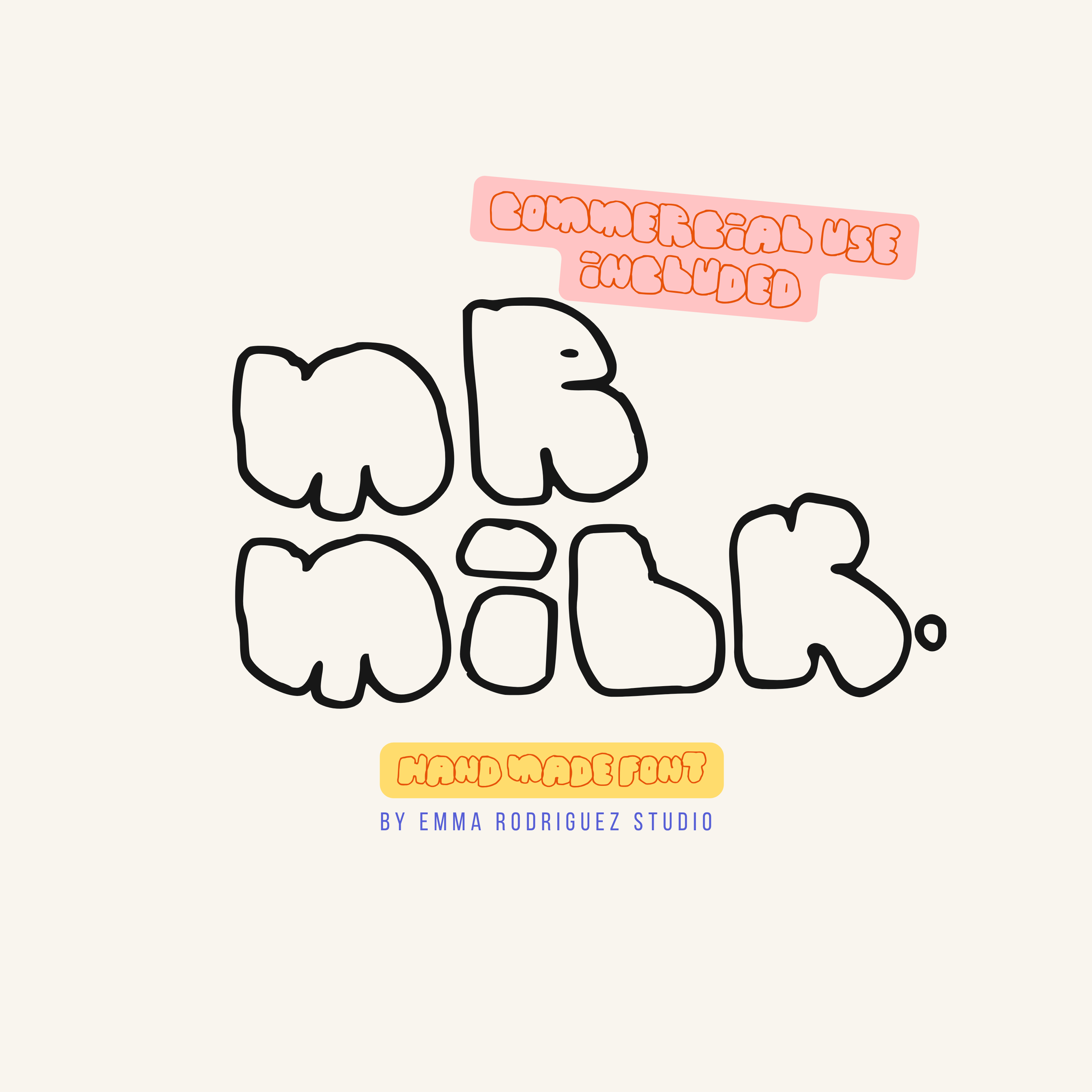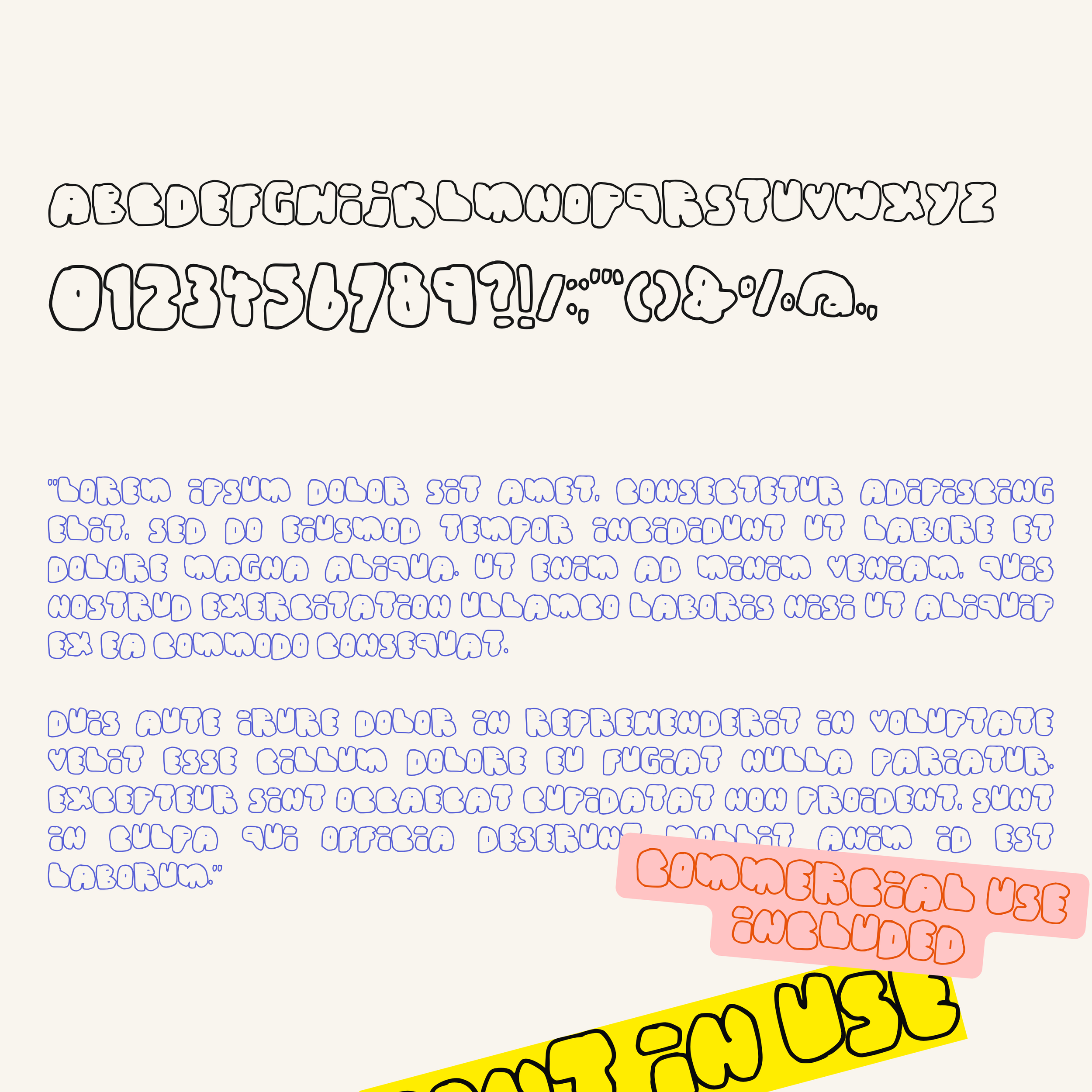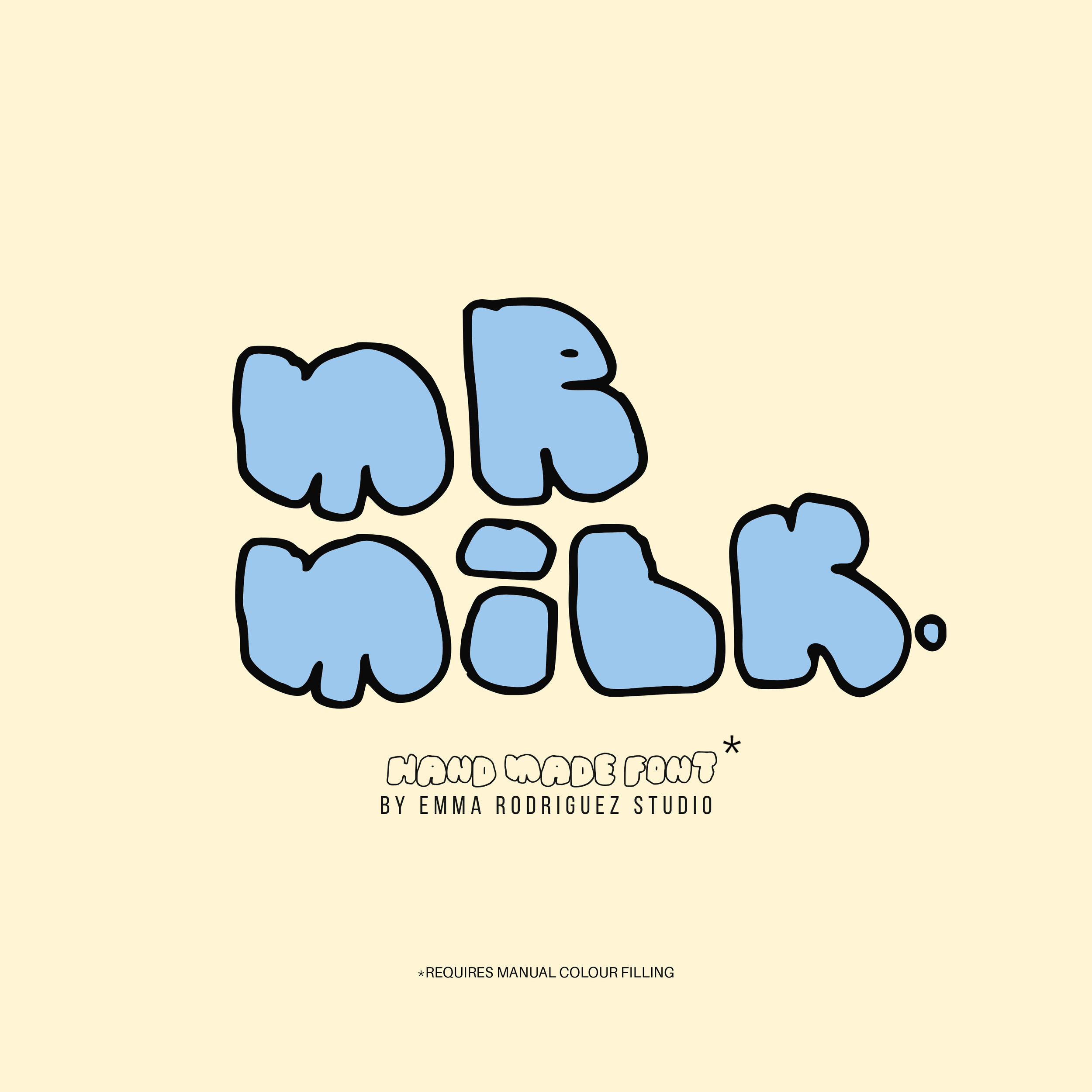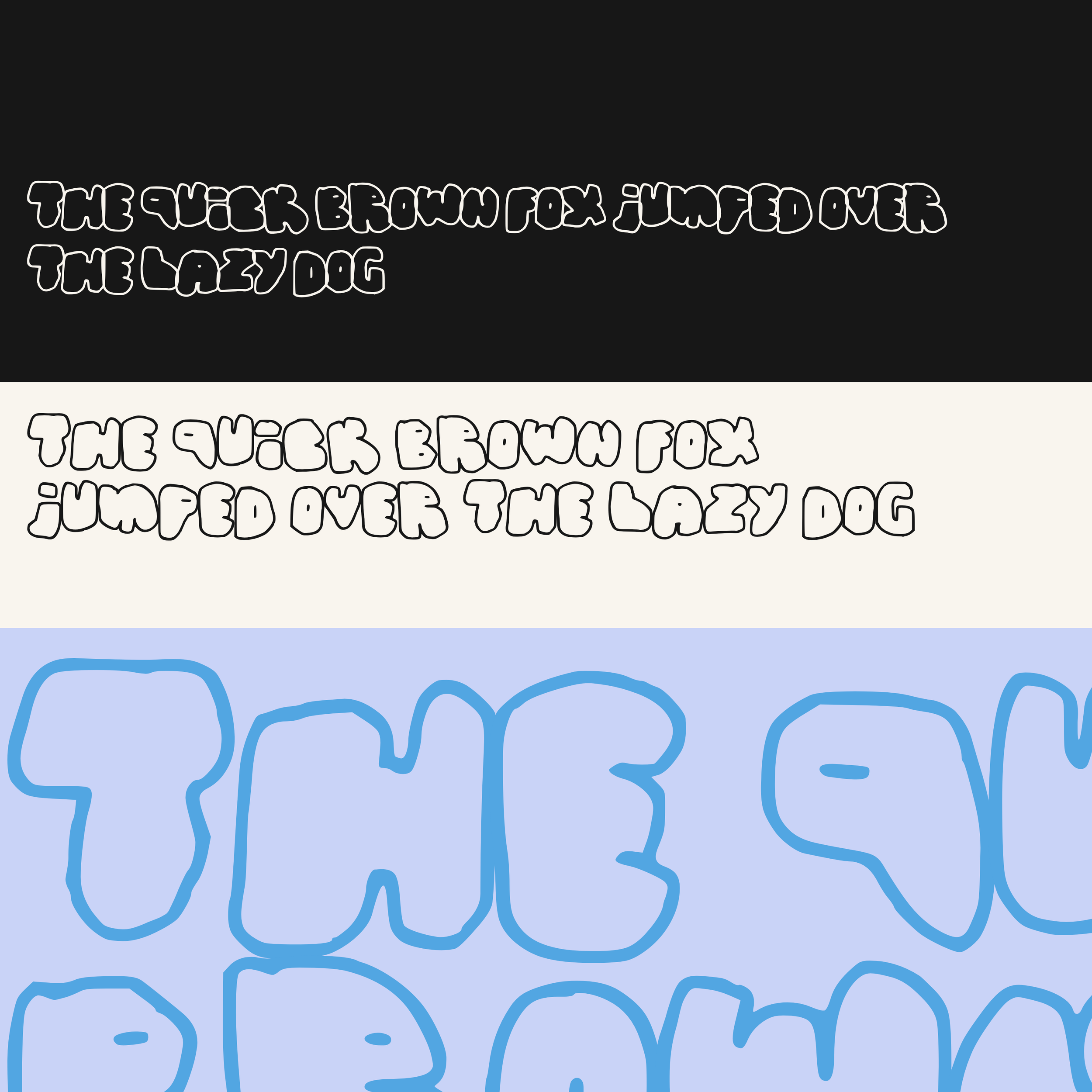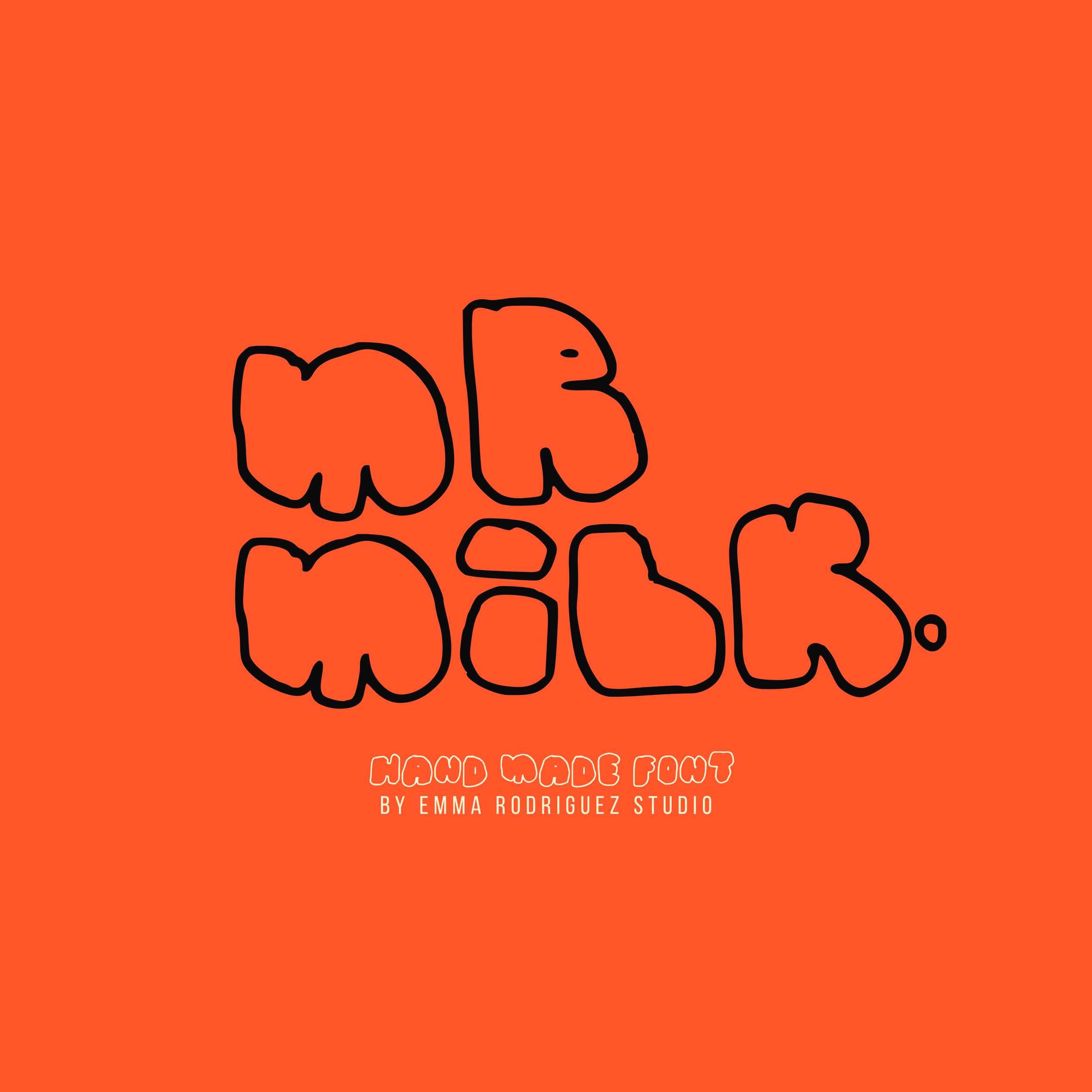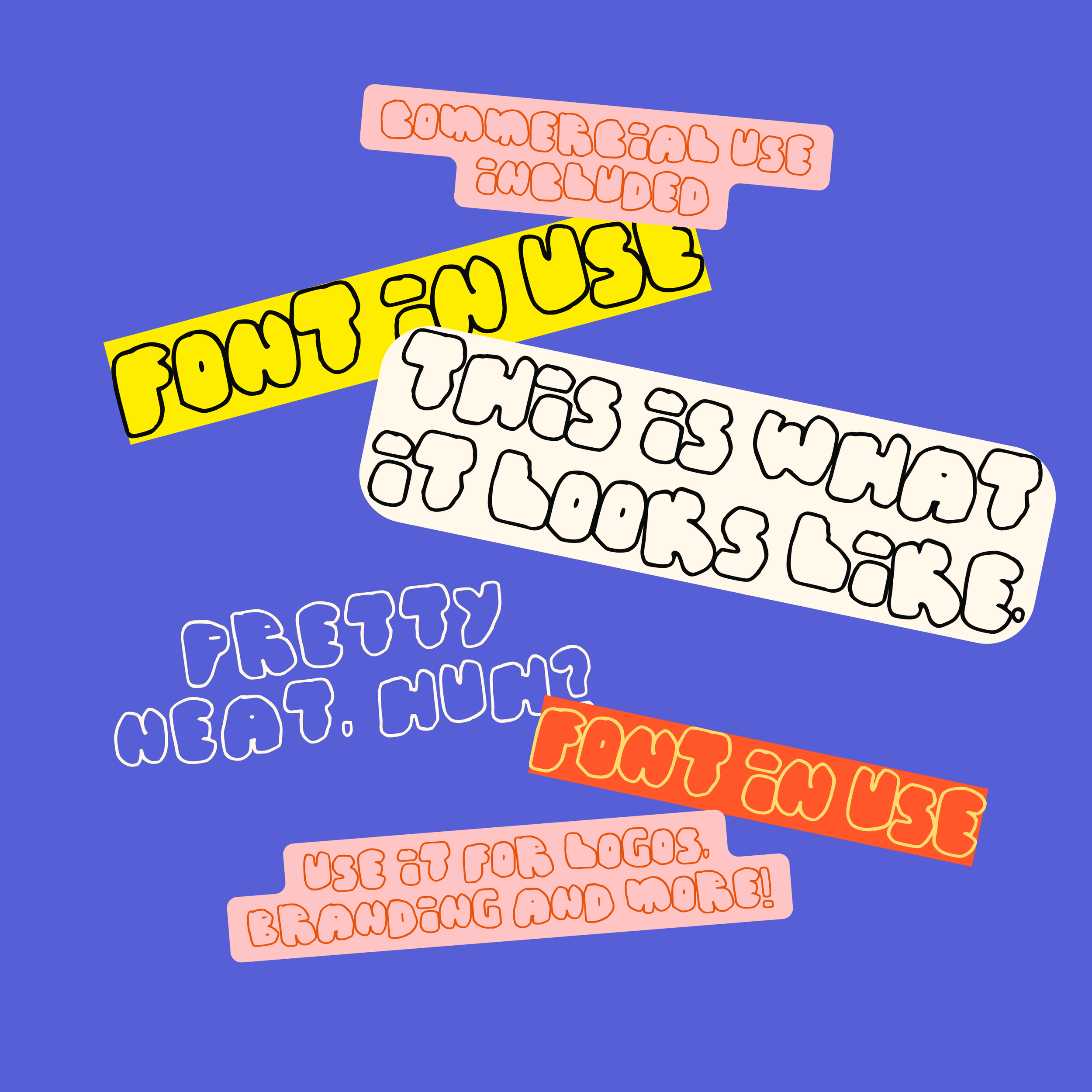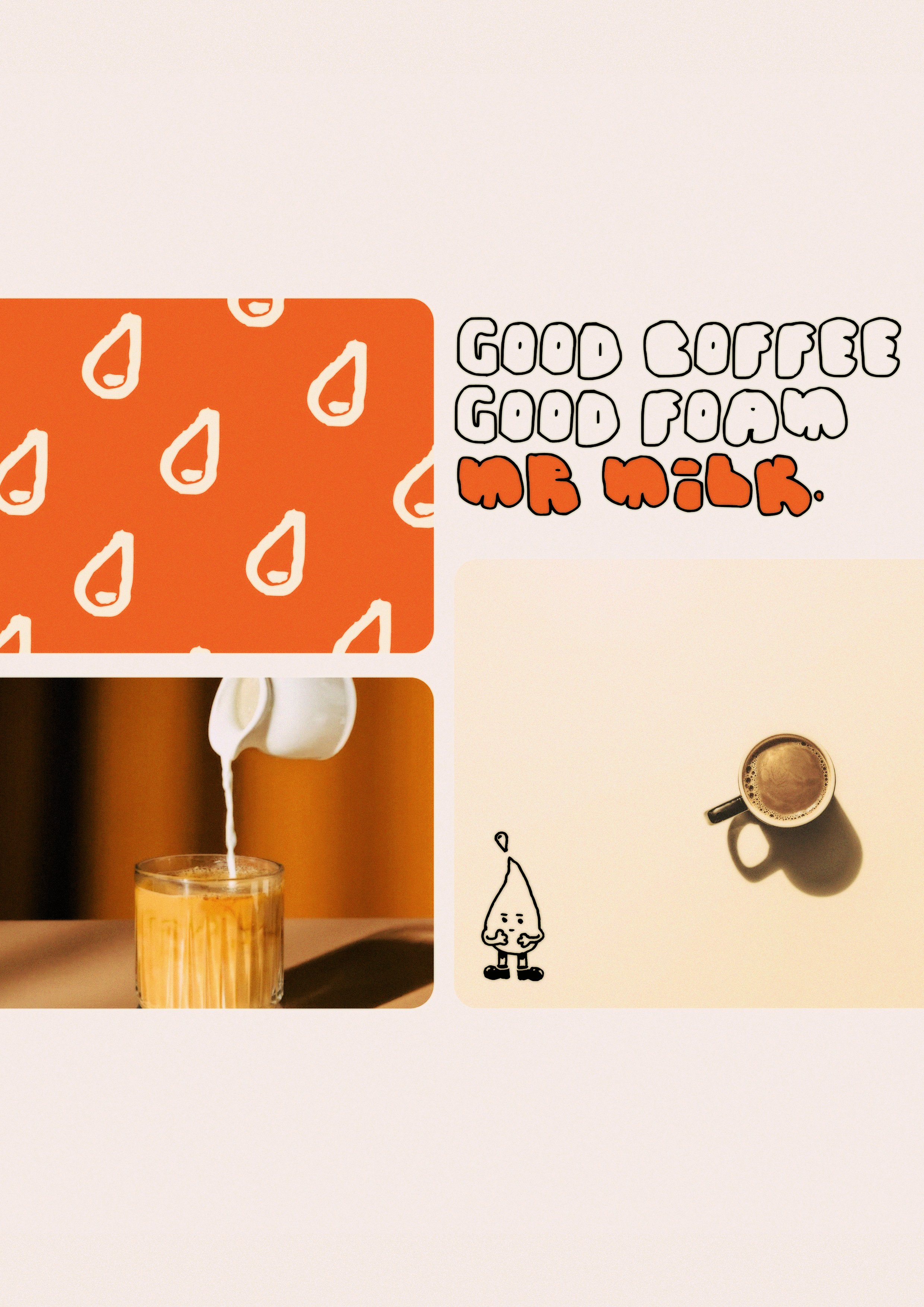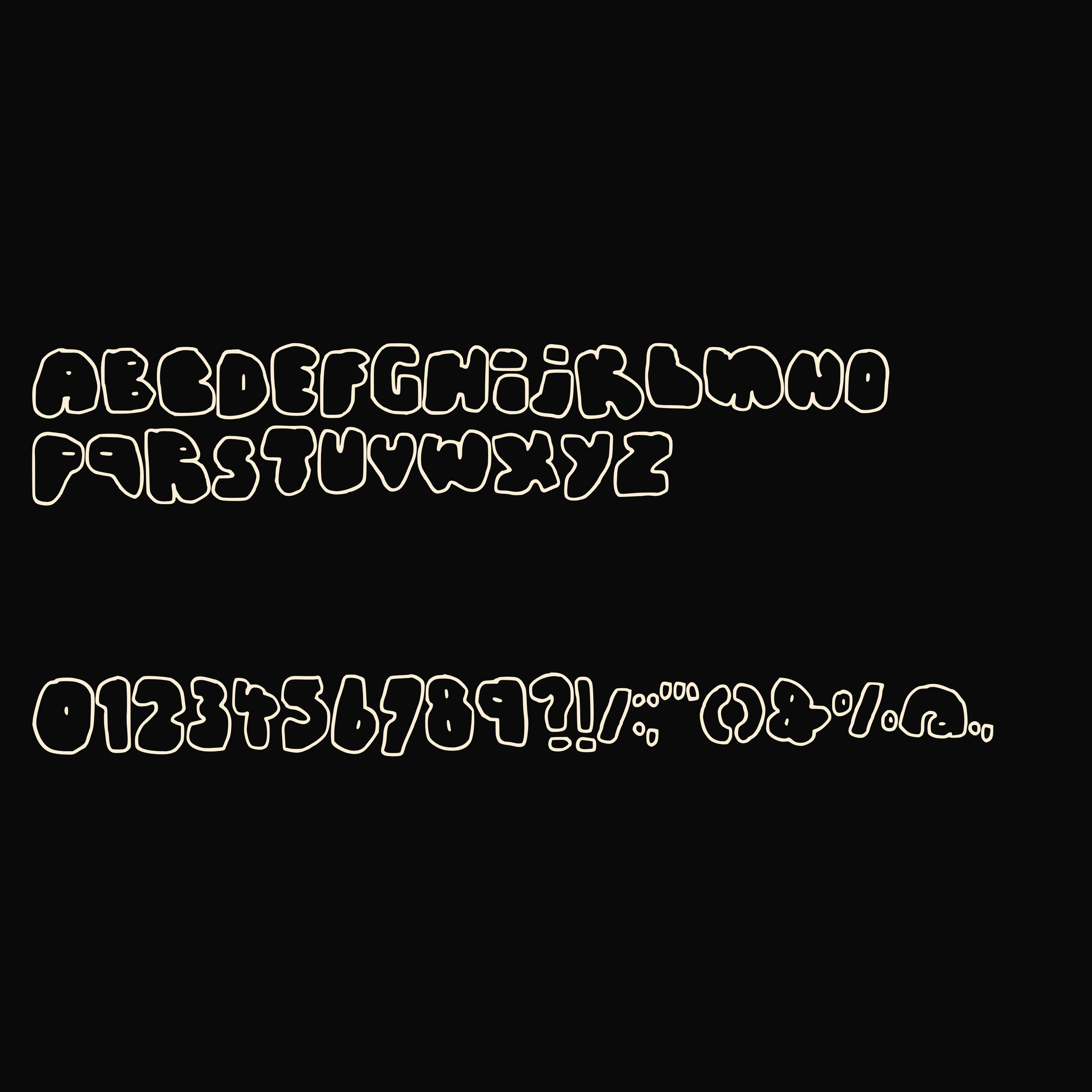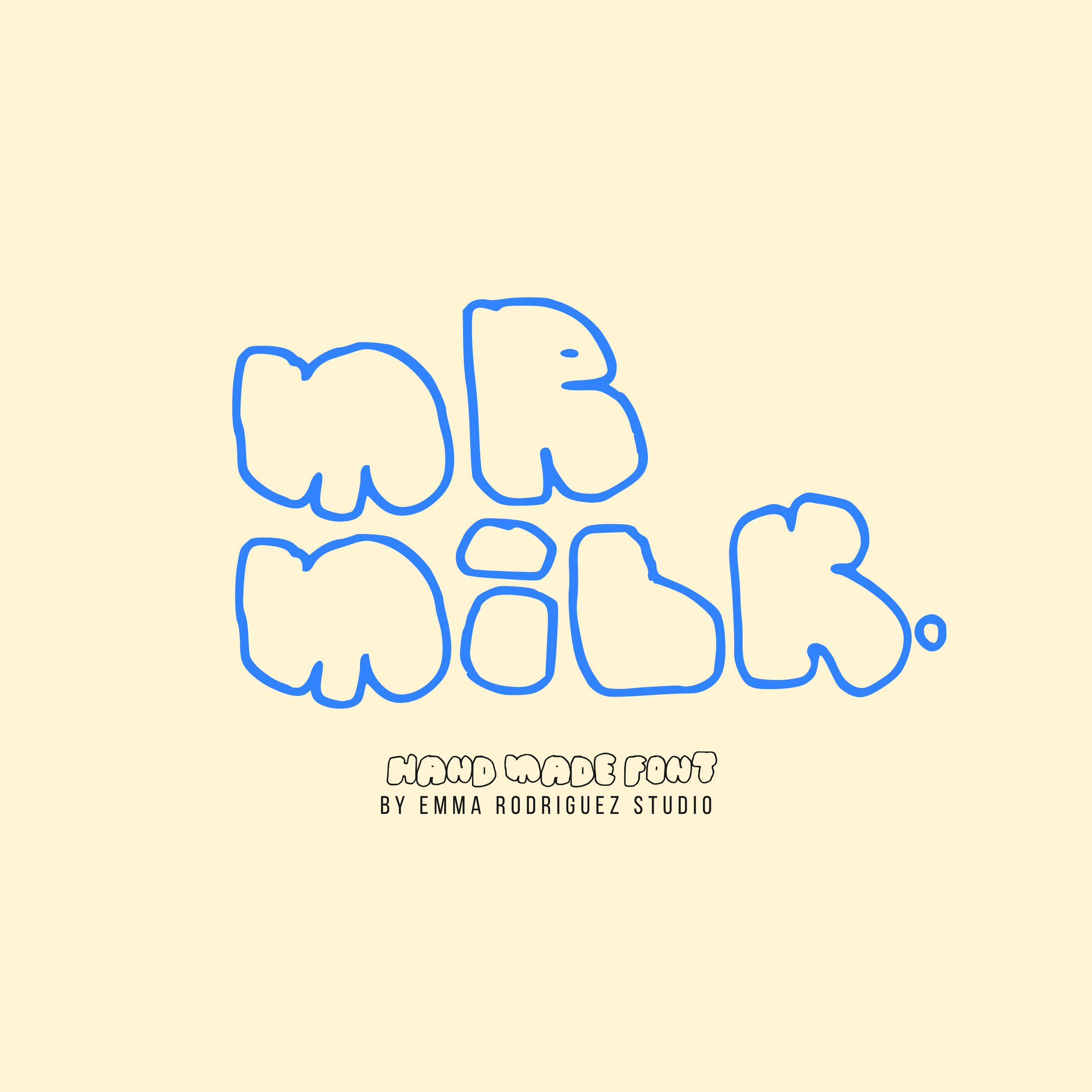
Mr Milk Font - Bubble Outline Type
Mr Milk is a chunky hand drawn outline display font built from soft, inflated letterforms, rounded shapes and intentionally irregular proportions. It has a playful bubble-like quality that feels bold, retro and graphic while still keeping a loose handmade character.
Mr Milk is an outline-only font. The letterforms are not pre-filled, so if you want solid lettering you will need to manually fill the characters using your chosen design software. This makes it easy to customise the interior colour, texture or finish depending on your project.
The chunky outlined forms give Mr Milk a slightly cartoonish, retro feel that works particularly well for graphic designers, illustrators, artists, poster makers, branding designers, small businesses and Etsy sellers creating personality driven design.
Perfect for:
• Posters and art prints
• Playful branding and logos
• Packaging design
• Food and drink branding
• Editorial graphics
• Merchandise and apparel
• Album artwork
• Social media graphics
• Product labels
• Stickers and stationery
• Creative campaigns
Please note that Mr Milk is intentionally handmade and imperfect. Letterforms, spacing, proportions, alignment and overall form may vary throughout the character set. The unusual shapes, uneven spacing and irregular construction are deliberate parts of the design rather than errors, and some manual kerning or letter placement may be useful depending on your layout.
Fonts by Emma Rodriguez Studio are made to have personality. Expect naive shapes, wonky details, playful imperfections and type that doesn’t take itself too seriously. They’re not designed for clean, minimal branding. They’re for bold, quirky, maximalist projects that need something a little stranger, sillier and more expressive.